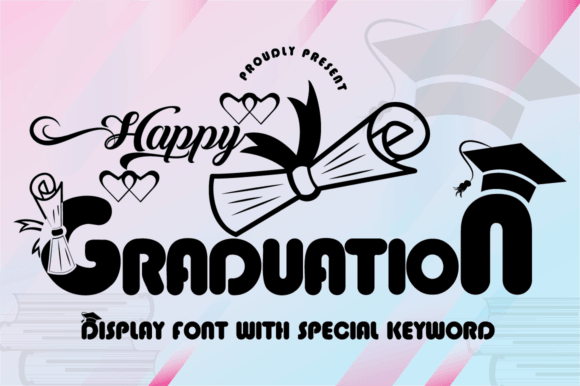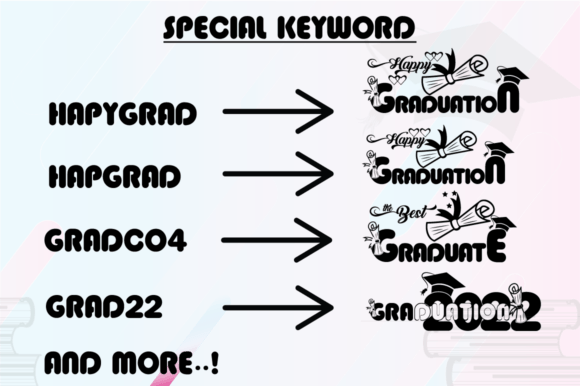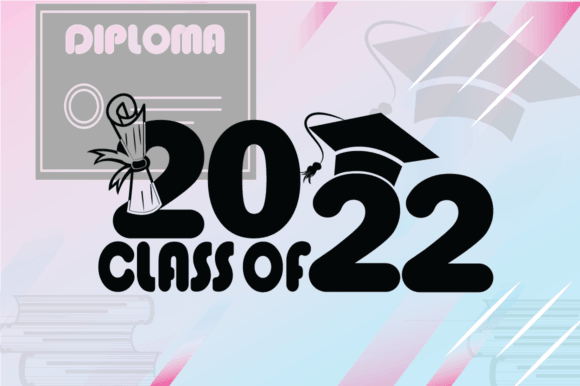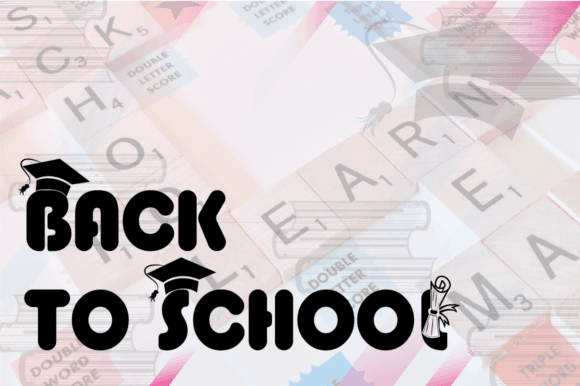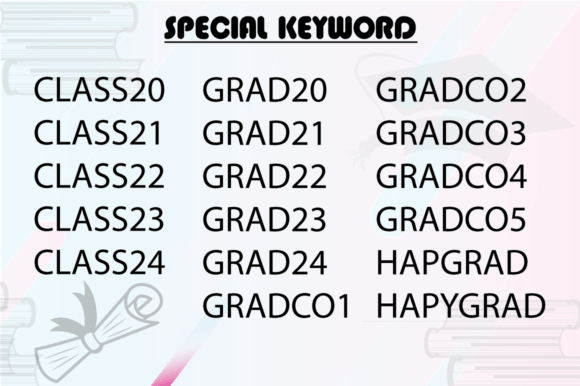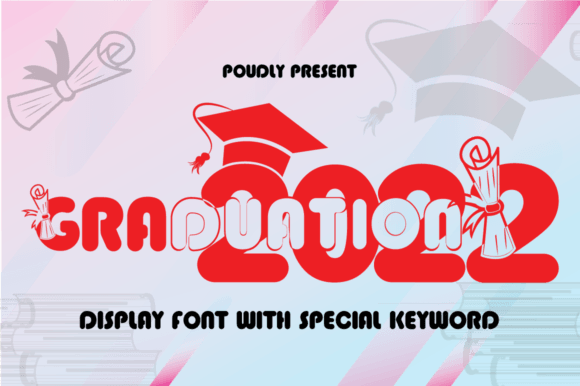
The Perfect Font for a Momentous Occasion
Have you ever scrolled through social media and stumbled upon a stunning graduation announcement that caught your eye? The perfect combination of colors, graphics, and typography often makes all the difference. A well-chosen font can elevate the entire design and make it truly unforgettable.
That’s where the Graduation Font comes in – a playful and modern display font designed to make a statement. With its versatility and sleek design, it’s perfect for social media displays, graduation announcements, book covers, and web designs. As a designer, you know the importance of having the right tools at your disposal, and the Graduation Font is a valuable addition to any creative arsenal. Whether you’re working on a project for a client or simply want to add some flair to your personal designs, this font is sure to impress.
Graduation Font Key Features
- Font Family: Graduation Font is a custom-designed font family.
- Unique Characteristics: Features a unique, hand-drawn design with a mix of modern and traditional elements, making it perfect for formal and celebratory occasions.
- Font Style Variations: Comes in various styles, including Regular, Italic, Bold, and Bold Italic, offering flexibility for different design needs.
Graduation Font Review
Overall, I’d say the Graduation Font is a decent option for a celebratory theme, but it has its limitations. Let’s dive into what works well and what doesn’t.
- ✨ Elegant and modern design that’s perfect for graduation announcements, certificates, or other celebratory materials.
- ✨ A wide range of font sizes and styles to choose from, making it easy to customize your design.
- ✨ The font is highly legible, making it easy to read, even at smaller sizes.
- ⚠️ Limited versatility – the font is specifically designed for celebratory themes, which may limit its use in other design contexts.
- ⚠️ May not be the best choice for formal or traditional designs, as it has a modern and playful feel.
- ⚠️ Some users may find the font too ornate or distracting, depending on the design context.
In conclusion, the Graduation Font is a solid choice for designers looking to add a celebratory touch to their projects. However, it’s essential to consider the limitations and choose it wisely to avoid overusing it. With some creative design decisions, this font can be a great addition to your toolkit.
The Graduation Font is perfect for:
- Graduation invitations and announcements.
- Academic certificates and diplomas.
- Party decorations and banners.
For the best results, use the Graduation Font in bold and italics to add emphasis to your text.
Experiment with different font sizes and styles to create a unique and eye-catching design.
Alternatives to Graduation Font
Playfair Display is an elegant and luxurious script font, ideal for formal events and high-end designs. Its intricate details and flourishes evoke a sense of sophistication and refinement. Compared to Graduation Font, Playfair Display has a more refined and sophisticated feel, making it suitable for formal invitations, wedding designs, and luxury branding.
Carolyna Pro is a modern and elegant script font with a touch of sophistication. It features a clean and refined design, making it suitable for a wide range of applications, from wedding invitations to fashion designs. Compared to Graduation Font, Carolyna Pro has a more modern and sleek feel, with a stronger emphasis on legibility.
Great Vibes is a beautiful and elegant script font with a vintage touch. It features a flowing and organic design, making it suitable for designs that require a sense of romance and elegance. Compared to Graduation Font, Great Vibes has a more vintage and whimsical feel, making it ideal for wedding designs, fashion branding, and luxury packaging.